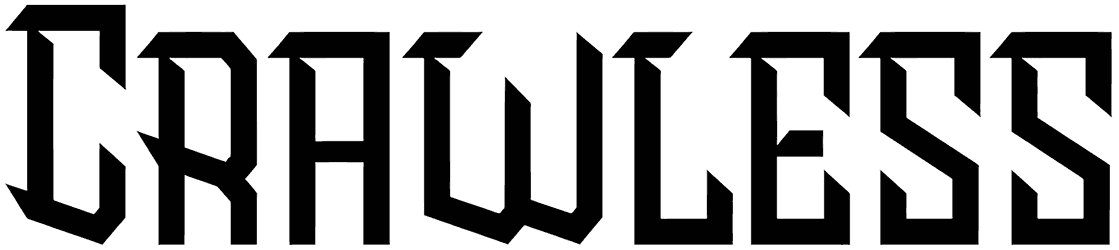
Crawless Font
With Crawless, you can ensure that your designs are classy but include a particularly bold and futuristic element. In terms of personality, this gothic font offers an entirely dynamic aesthetic for any design in which it is used.
Small letters are not necessary for it to show great power in attracting the audience. This modern font contains broad strokes and a new architecture that successfully designs posters, famous logos, and packaging.